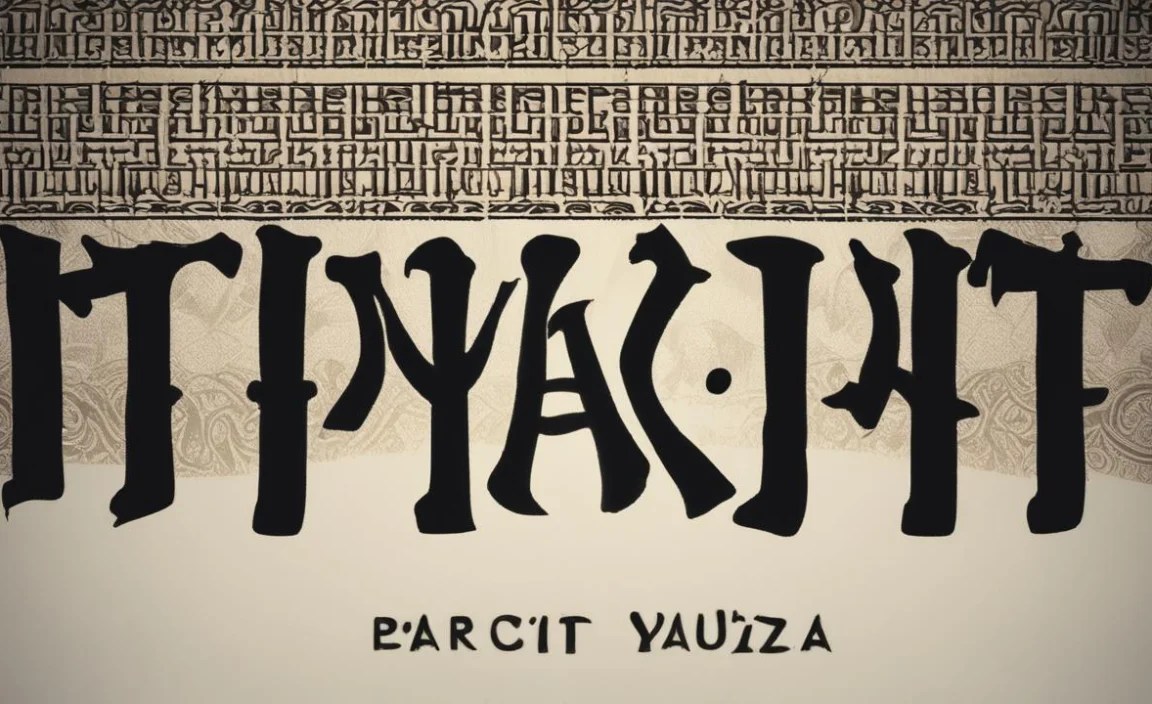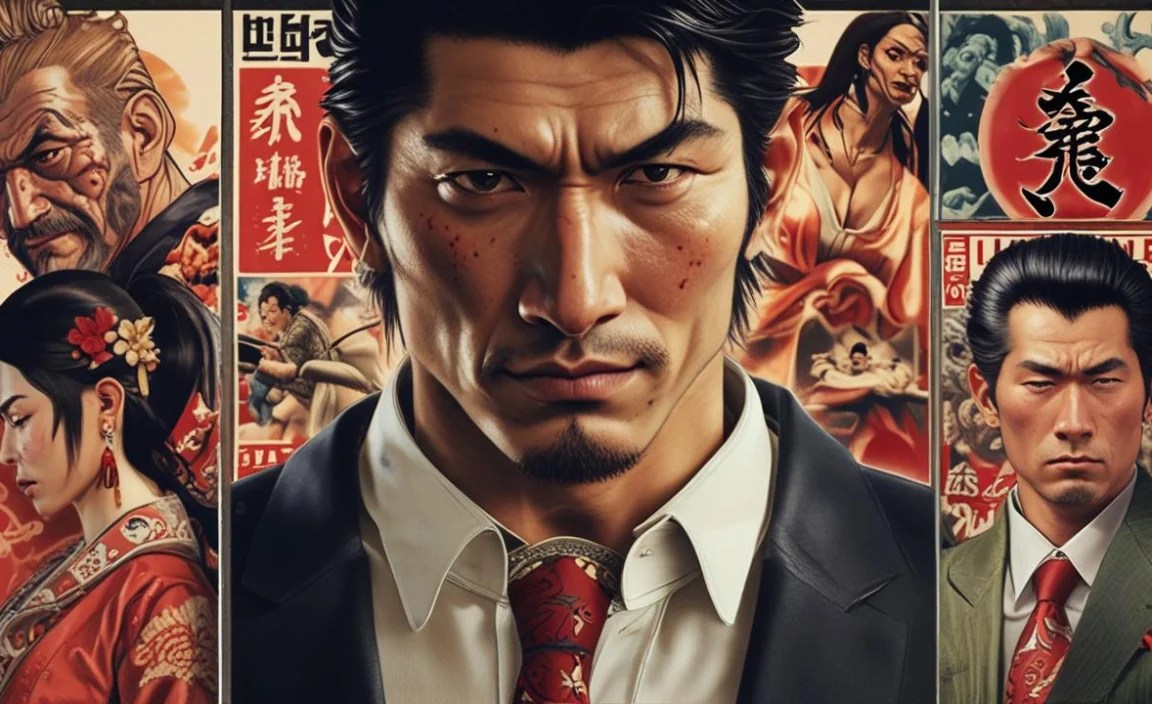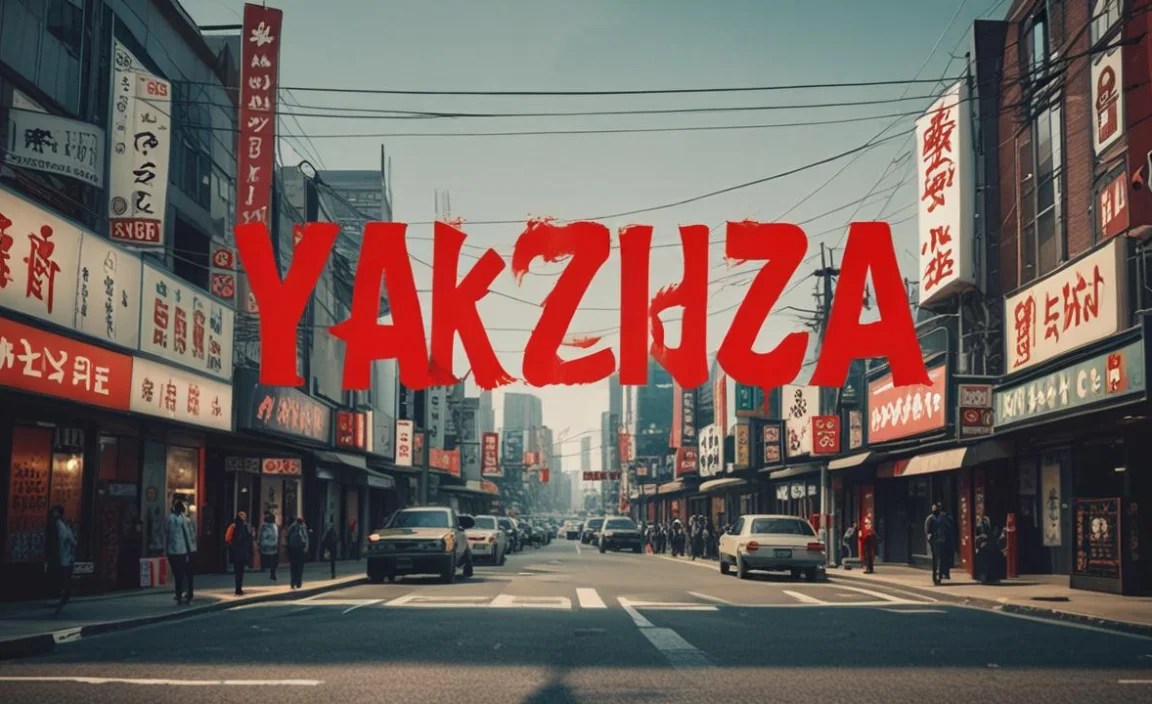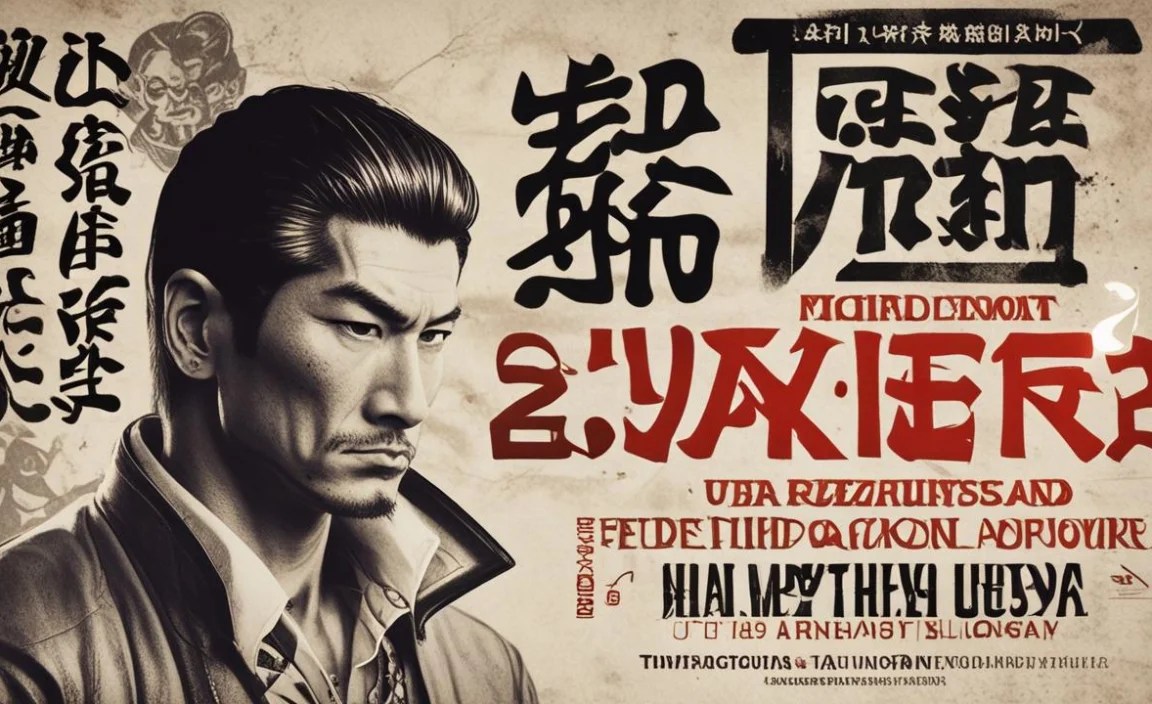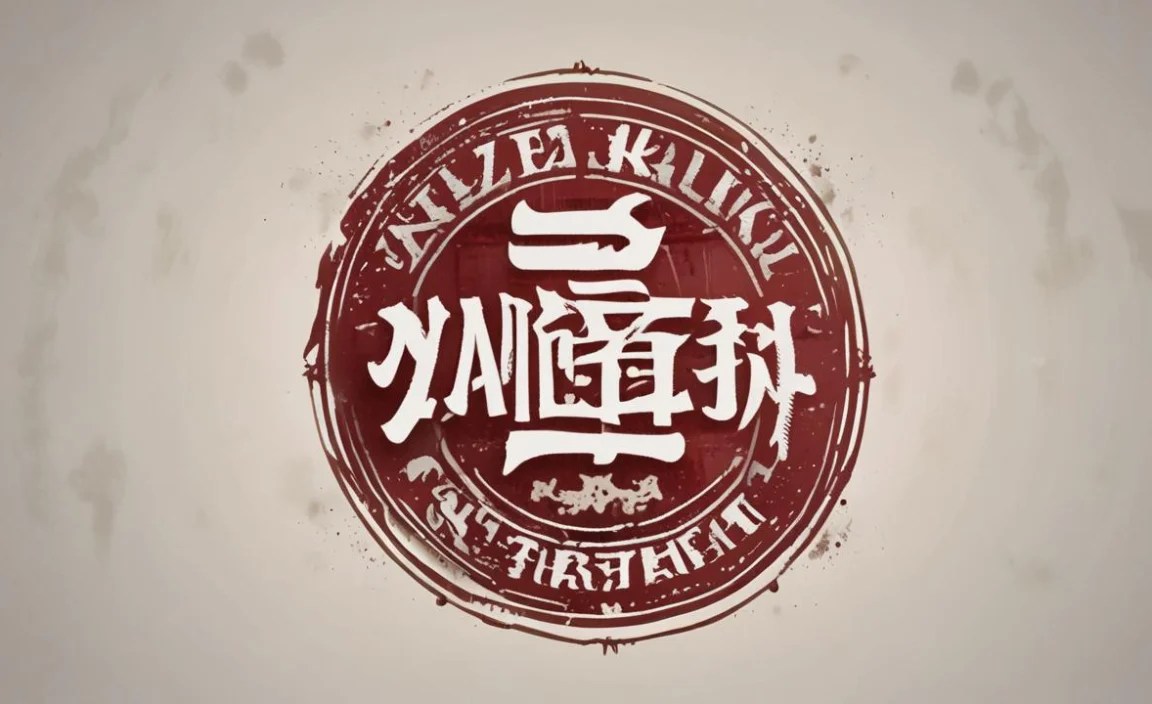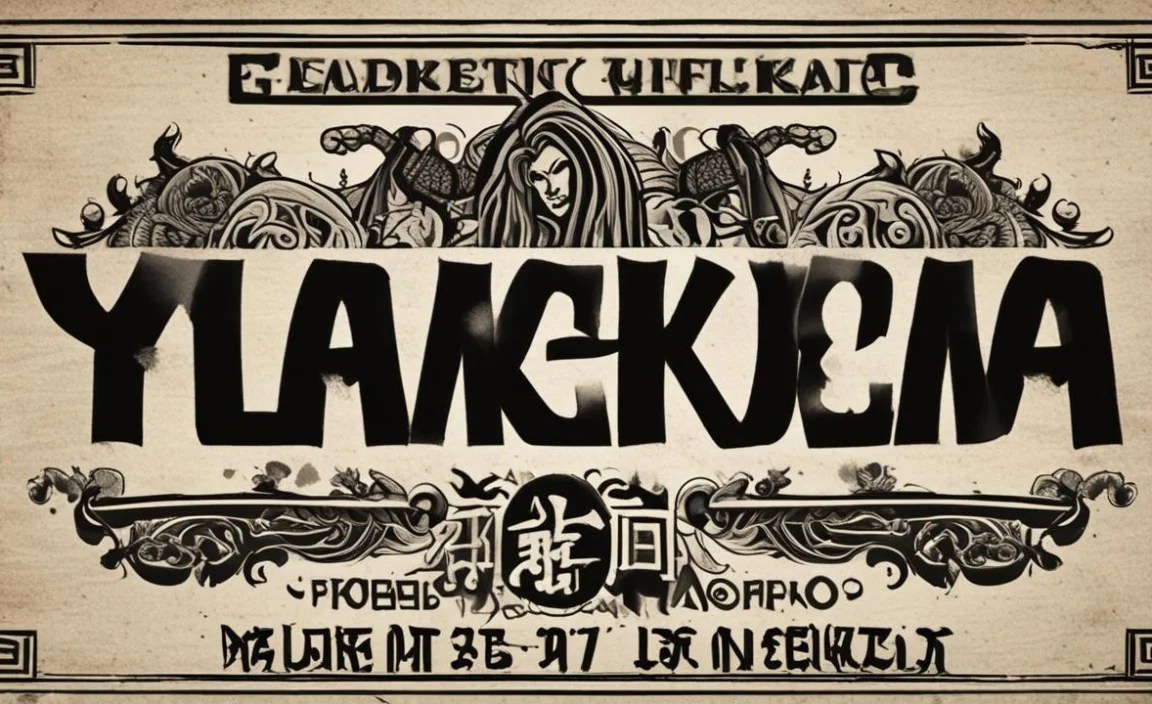
The “Yakuza Font,” inspired by the popular Yakuza video game series, encapsulates the bold, gritty essence of the game’s aesthetic.
This font was created by Japanese graphic designer Norio Tsunoda in the early 1990s. This font design captures the attention of gamers and designers alike with its unique style.
SEGA, the developer of the Yakuza series, developed the original font in-house. Although SEGA hasn’t officially distributed the font, many fans have created and made replicas of the Yakuza font available to the public
The Yakuza font family features a bold, impactful typeface that stands out, making it ideal for headlines, posters, and other eye-catching designs. Here are the various weights and styles available in some fan-created Yakuza-inspired fonts:
a. Yakuza Regular
| Style: | Brush |
Notable Uses Of Yakuza Font
The Yakuza font strongly defines the branding and promotional materials of the Yakuza video game series, shaping title screens, menus, and cutscene subtitles.
It has also found a niche use among fans of the series for game-related projects such as fan art, video edits, and mods. Designers often use it in posters, tattoos, and other projects to evoke a sense of Japanese tradition mixed with modern edginess.
The Yakuza font, with its distinct appearance, works well in the following scenarios:
- Game-related projects (posters, banners, mods)
- Action movie titles and posters
- Tattoo designs
- Artwork that needs to evoke Japanese culture
- Bold, aggressive marketing materials
Given its strong, unique style, it doesn’t suit everyday uses like body text in professional documents but excels in branding and bold statements.
The Yakuza font and its various fan-created versions are perfect for designers looking to incorporate a touch of Japanese-inspired grit and intensity into their projects.
While it might not be readily available in official channels, the fan-made fonts provide an excellent alternative for creating Yakuza-themed or Japanese-inspired designs.
1.What Is The Yakuza Font?
The Yakuza font is inspired by the typography used in the Yakuza video game series by SEGA.
5.Is There An Official Yakuza Font?
No official font has been released, but fan-made replicas are available.
6.What Are Good Alternatives To The Yakuza Font?
Brushstroke fonts like Brushstrike and Japan Brush are good alternatives.
8.Where Is The Yakuza Font Best Used?
It is best used in bold designs like posters, game mods, and tattoos.